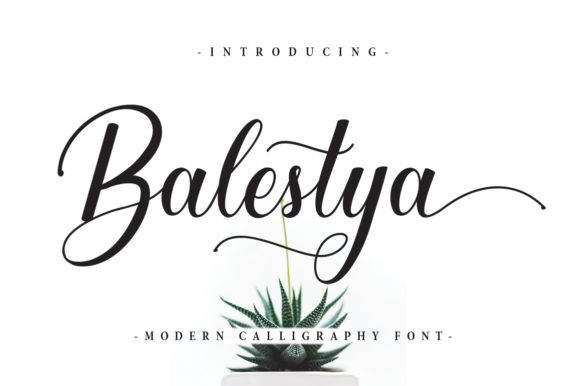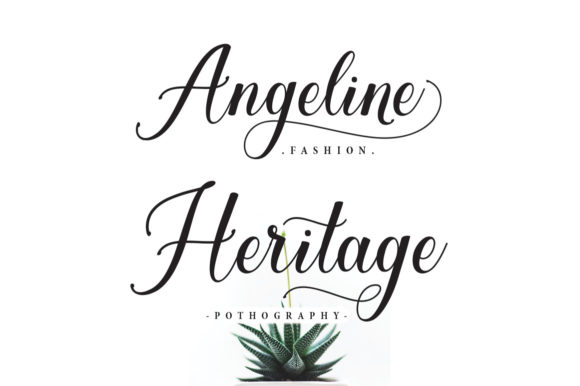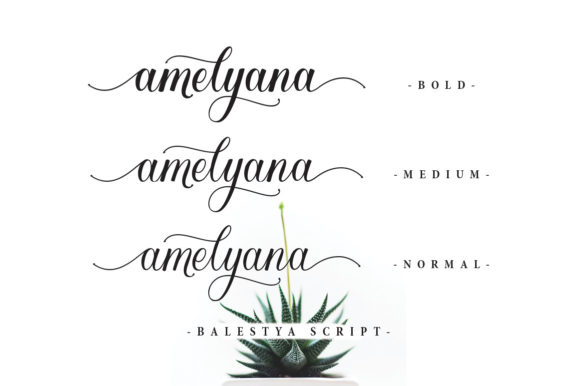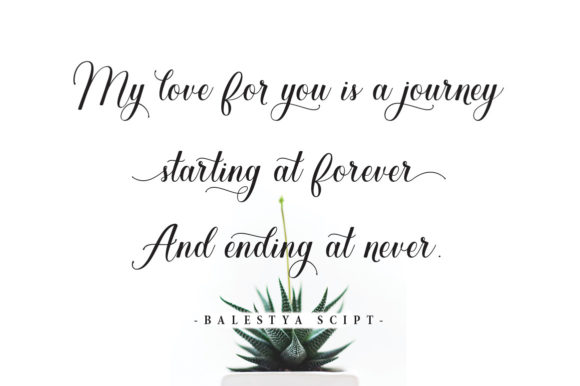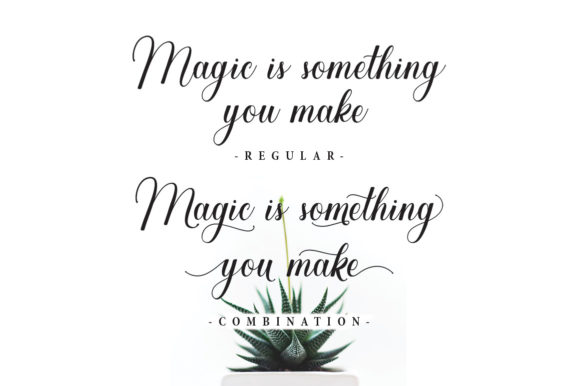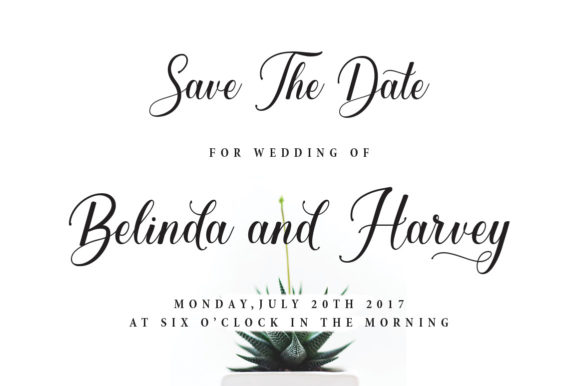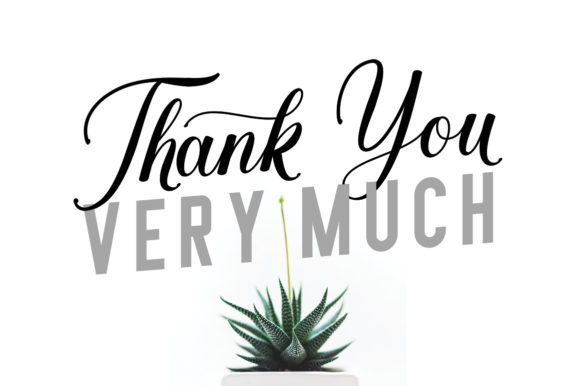
HomeScript FontsBalestya Font Script Fonts Balestya Font FacebookXPinterestWhatsApp Balestya Font Poster 2 Balestya Font Poster 3 Balestya Font Poster 4 Balestya Font Poster 5 Balestya Font Poster 6 Balestya Font Poster 7 About Balestya Font Balestya pays homage to classic calligraphy with its bold swashes and uniquely authentic letters! DOWNLOAD ON CREATIVE FABRICAThis font is sold and delivered by Creative Fabrica. Font Canyon may earn a commission if you buy through this link. People also explored Lipstick Croffle Font Italic Cramasion Font Rhino Font Vintage Bridge Answer Font Last Christmas Script Font Flaying Horse Font Dinosaur Font Mooka Powder – font duo 310 0 TagsBalestya Font Previous articleWinter is Coming FontNext articleLucky Walter Font LEAVE A REPLY Cancel reply Comment: Please enter your comment! Name:* Please enter your name here Email:* You have entered an incorrect email address! Please enter your email address here Website: Save my name, email, and website in this browser for the next time I comment. Personal Use Free Zero Panzer Personal Use Free Read more about this font Breakaway Personal Use Free Read more about this font Ailand Personal Use Free Read more about this font Unicorn Kids Personal Use Free Read more about this font BLOG Modern Sans-Serif Fonts That Brands Love in 2025 In 2025, modern sans-serif fonts remain a top choice for brands looking to project clarity, professionalism, and... Free Fonts Risk: Why Free Fonts Can Be Dangerous for Designers To increase your work productivity, choose the most readable fonts. Transform Your Website: Elevate Your Typography with 7 Best Web Font Generators